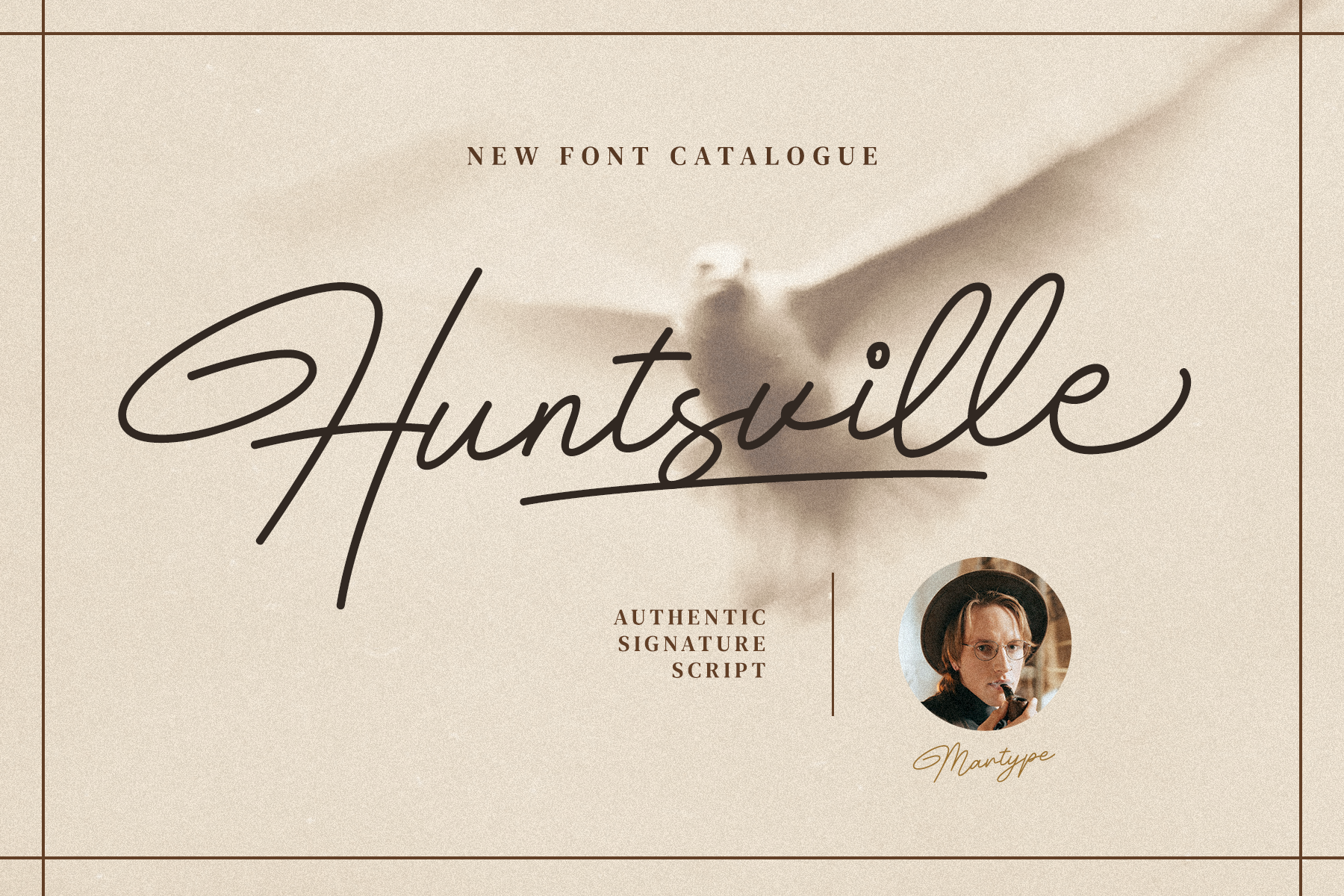
Huntsville - Monoline Signature Font
Introducing Huntsville Monoline Signature, a brand new font with monoline style and signature feels, also made from hanwriting skill to make it more useable and stylish. This font also suitable for Branding Design, Logotype, Wedding Invitation, Headline, Posters, Business Card and etc. Yes this font comes with more than 200+ alternates and ligatures to complete your design and make more attractive than other font.